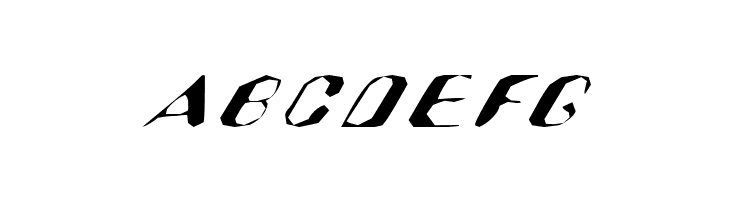
Vicious Hunger Condensed Italic Font
- Font: Vicious Hunger Condensed Italic
- Weight: Condensed Italic
A playful, hand-drawn font with an artistic and informal style.